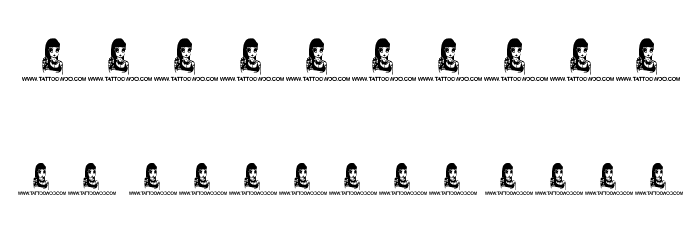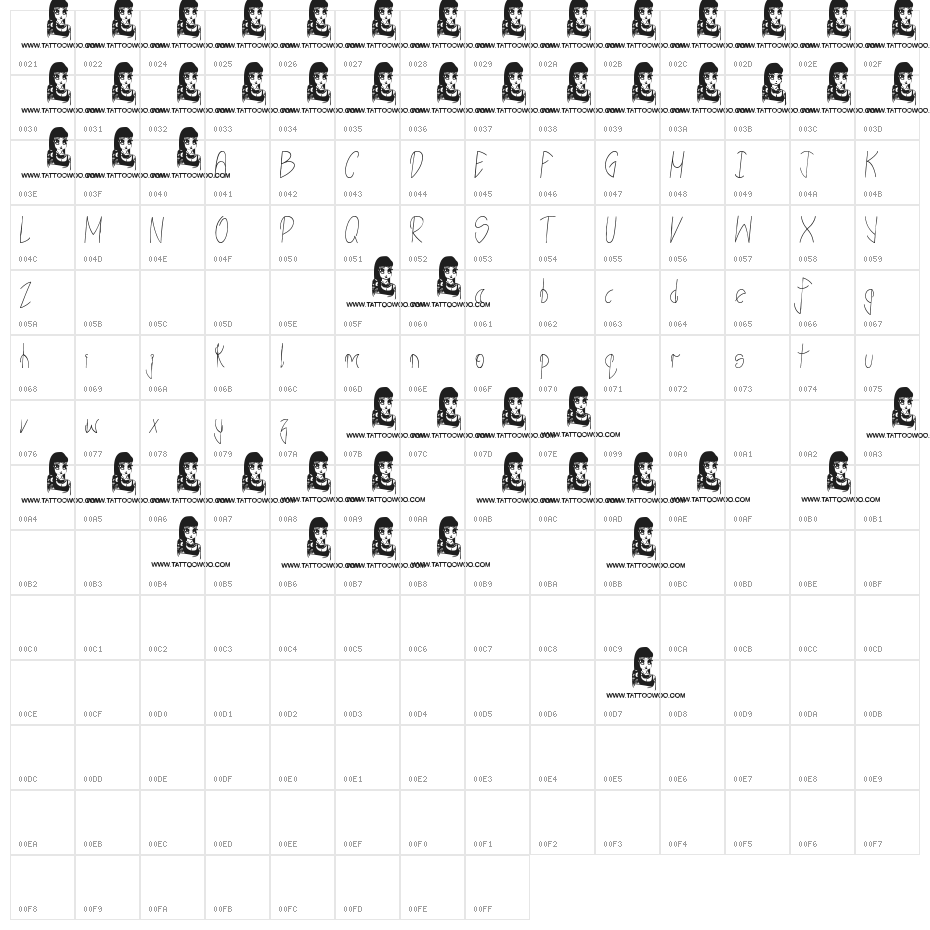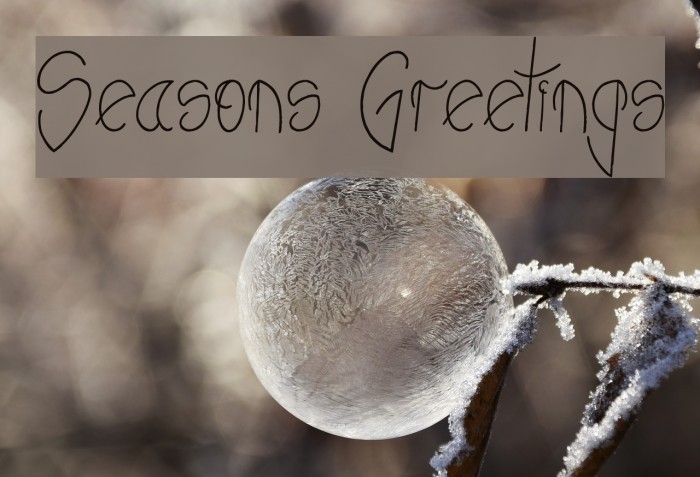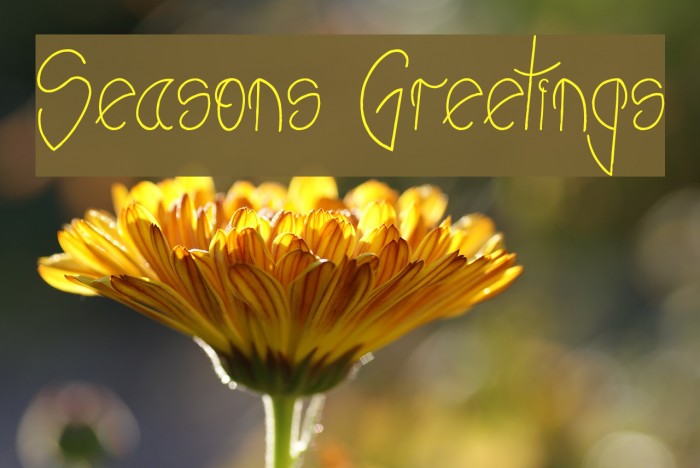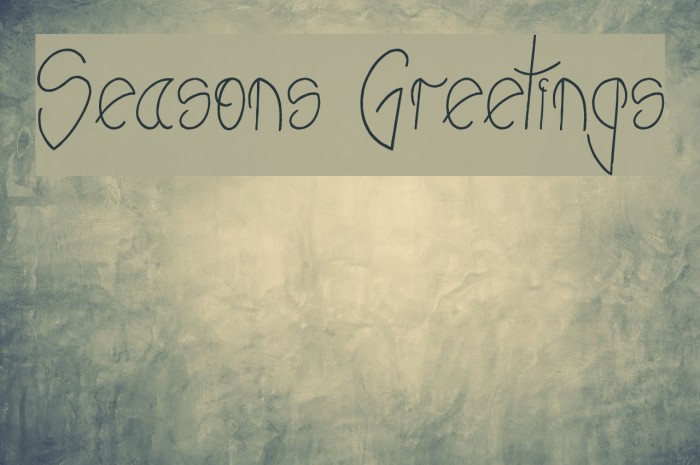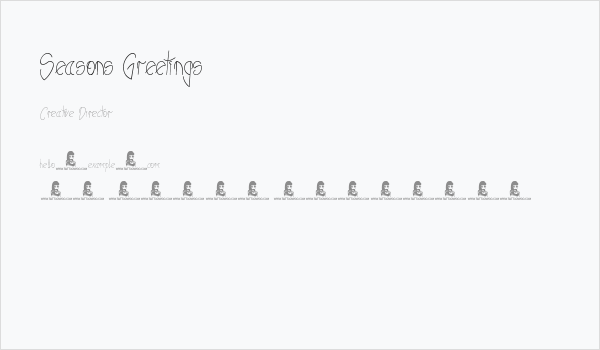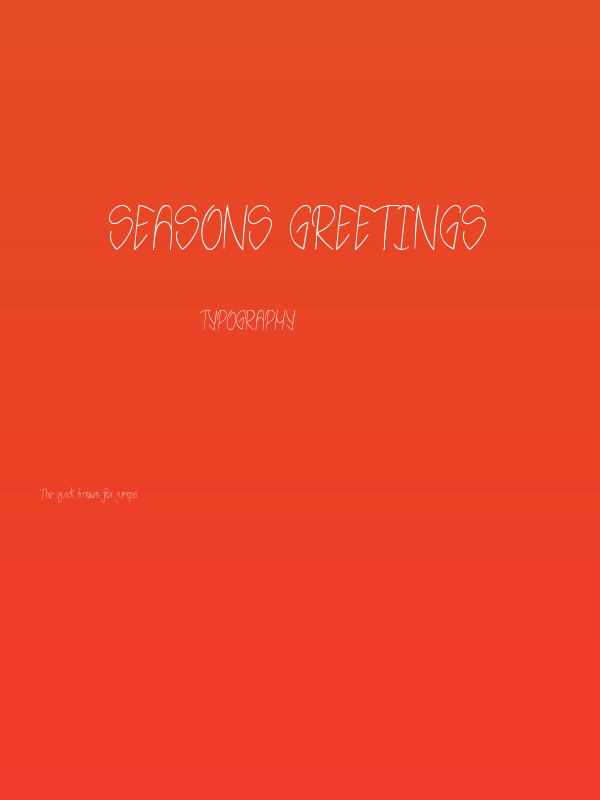
Seasons Greetings Font
Seasons Greetings Description
This font features a whimsical and flowing script style, characterized by its elongated and slightly irregular letterforms. The uppercase letters are tall and narrow, with a playful, hand-drawn quality that gives them a unique charm. The lowercase letters maintain the same whimsical style, with some letters featuring distinctive loops and curves that add to the font's overall personality. The font's thin strokes and high contrast between thick and thin lines create a delicate appearance, making it suitable for decorative purposes. The spacing between characters is relatively tight, enhancing the cohesive look of the text.
| Proposed Projects | Ideal for greeting cards, invitations, and decorative headings. |